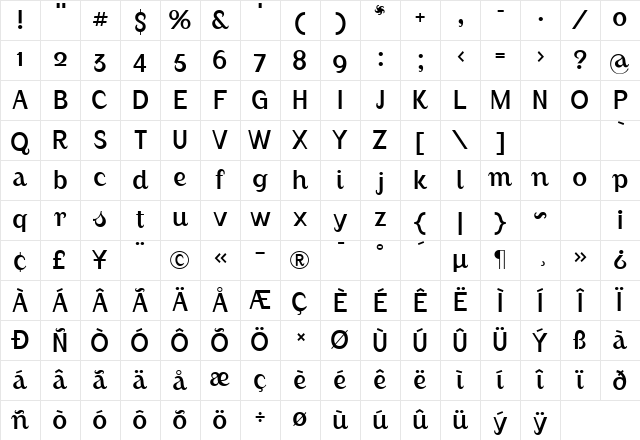
AugustLightAlternate is a composed and adaptable typeface that performs quietly and consistently across a wide range of design contexts. Its slender proportions lend an understated elegance to any composition.